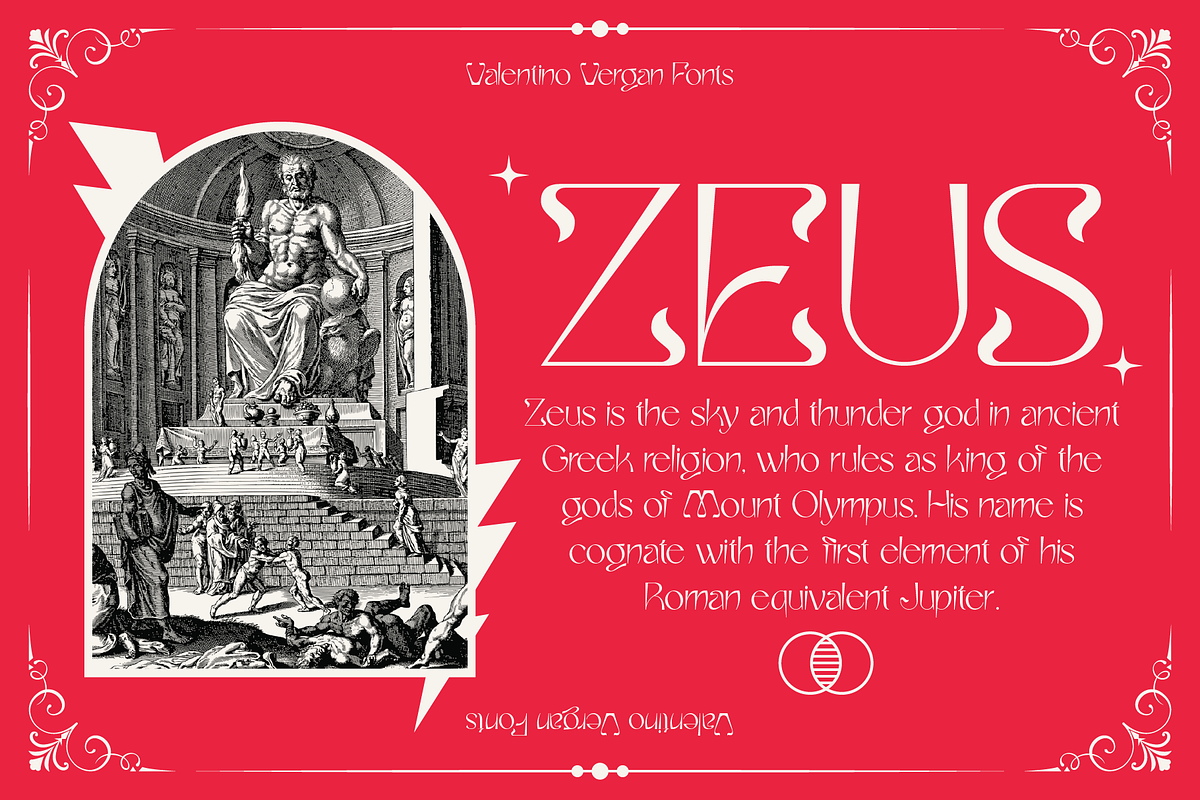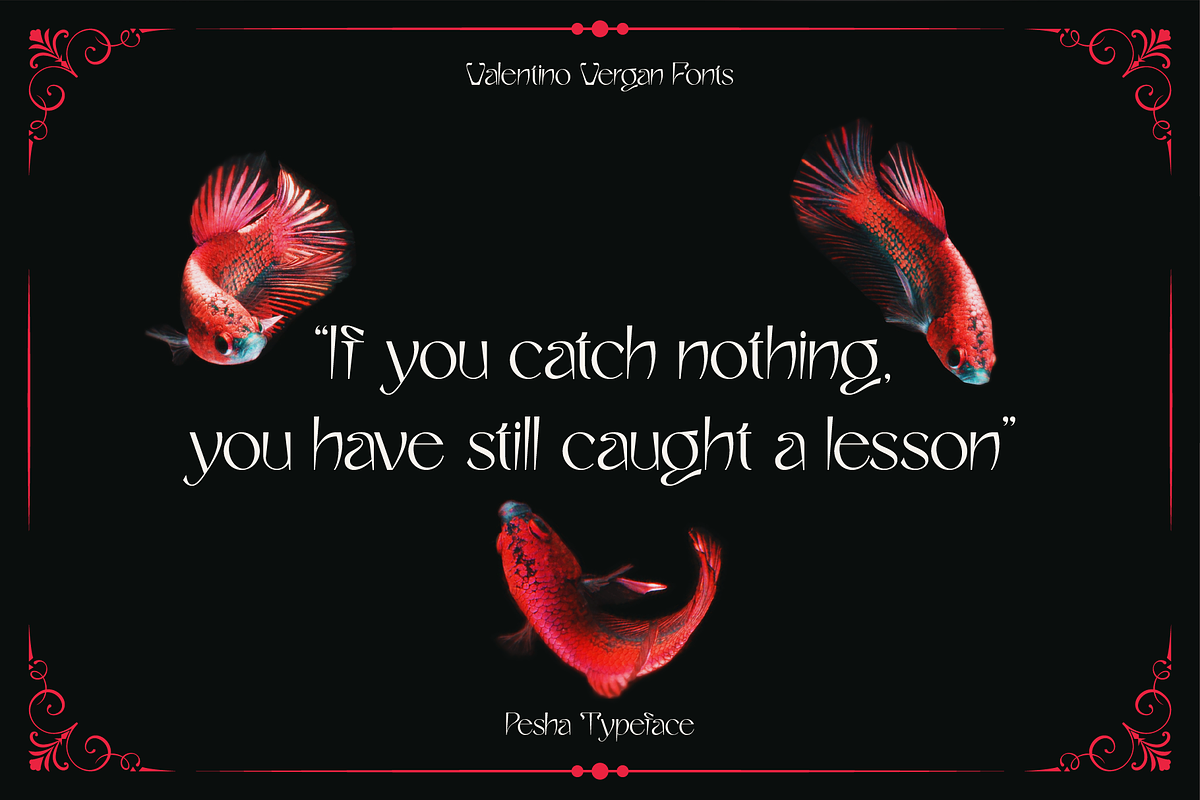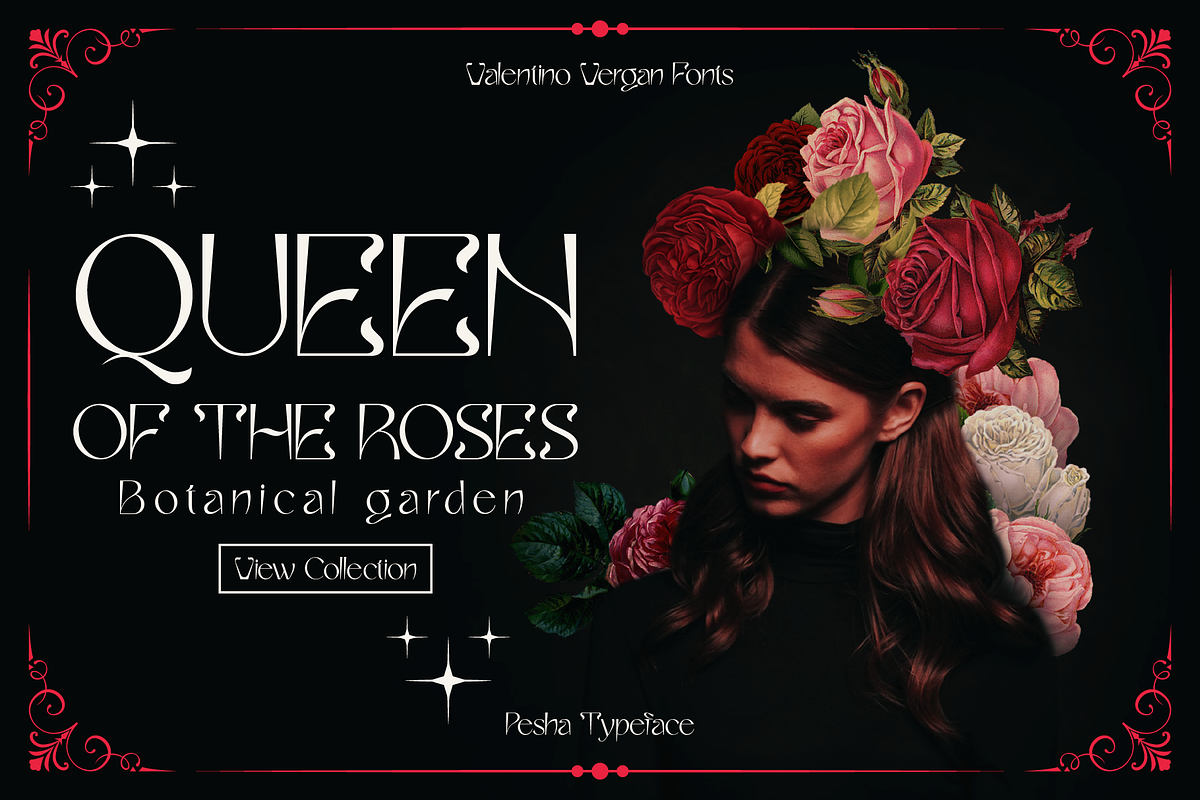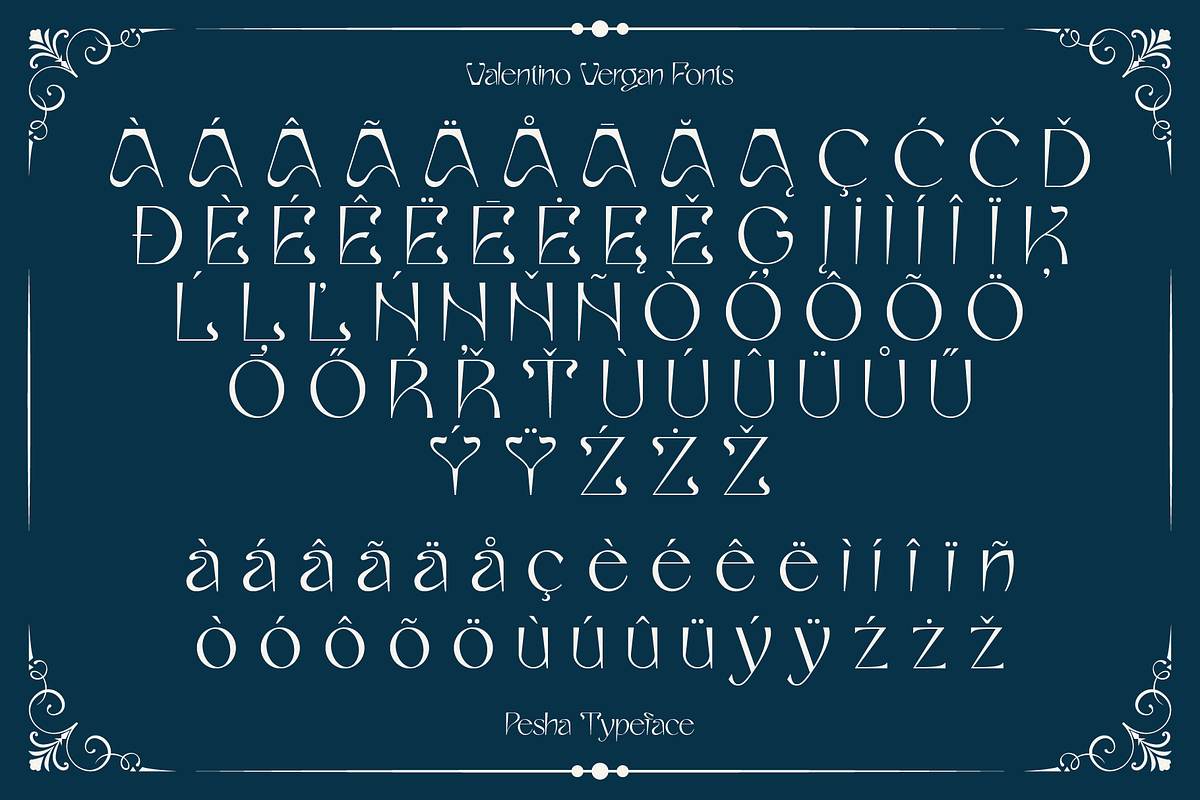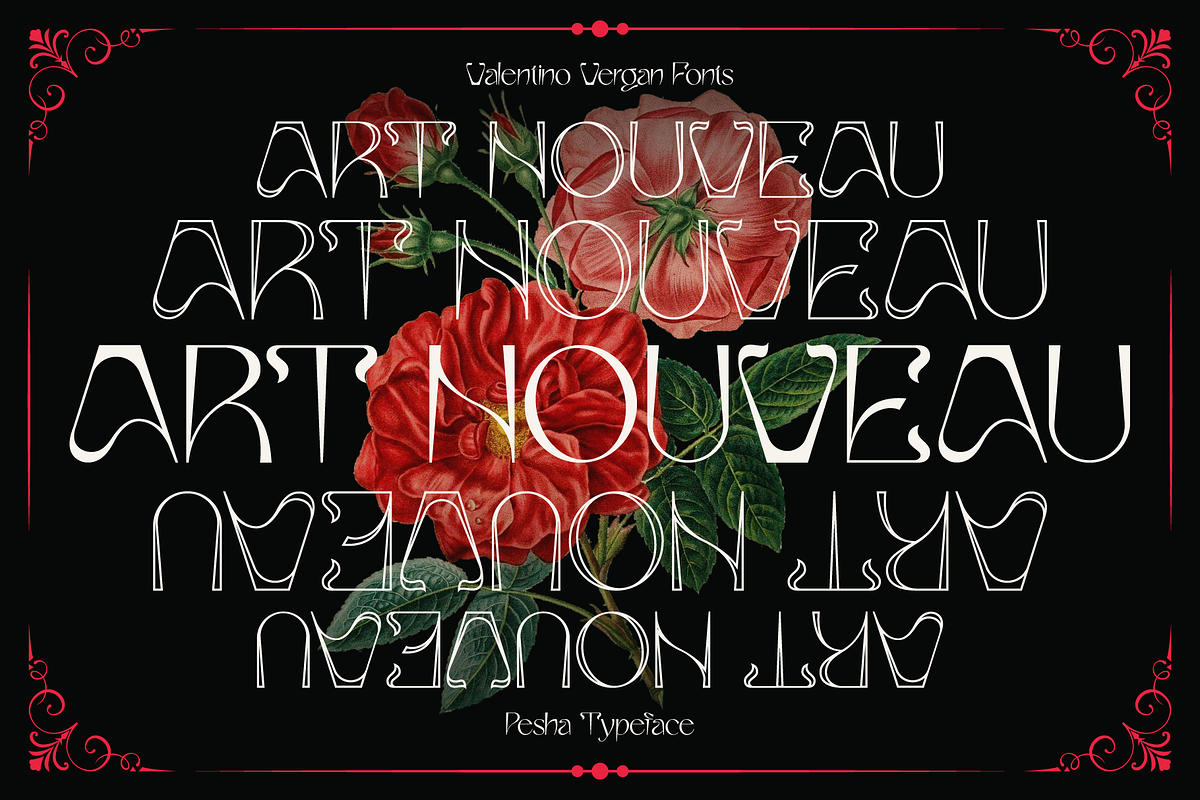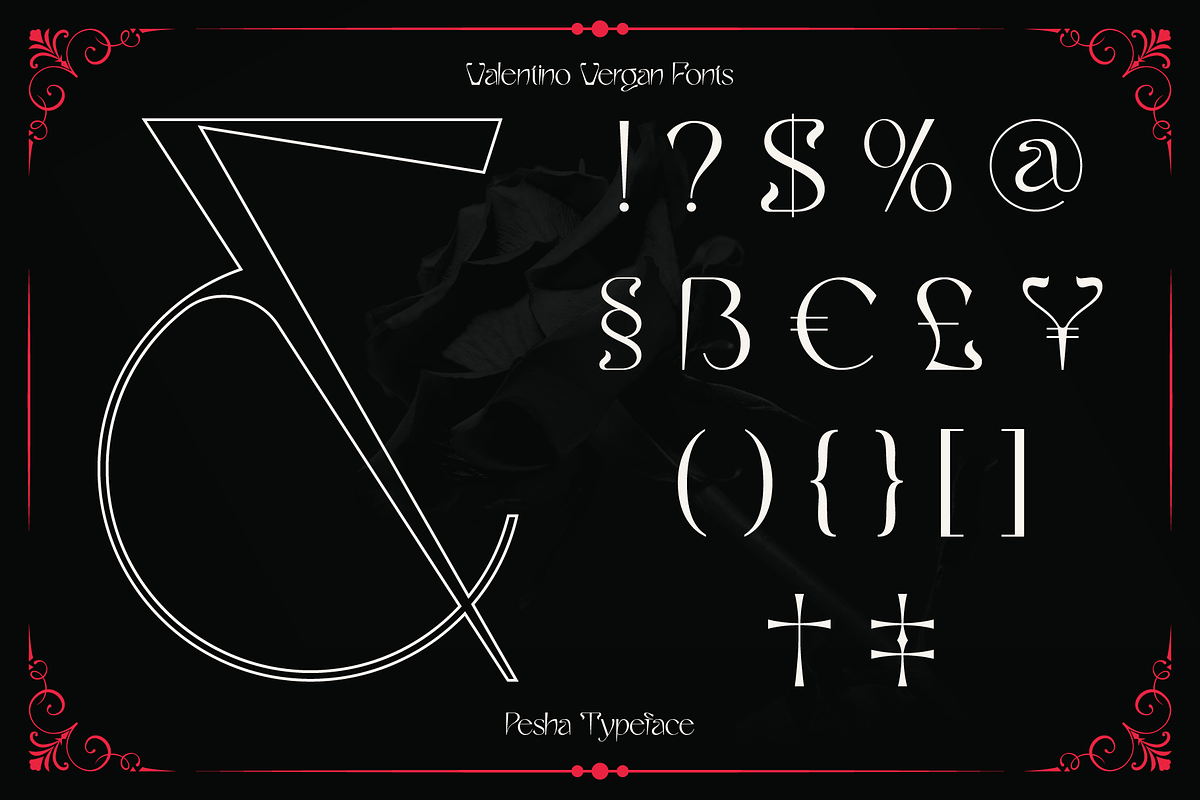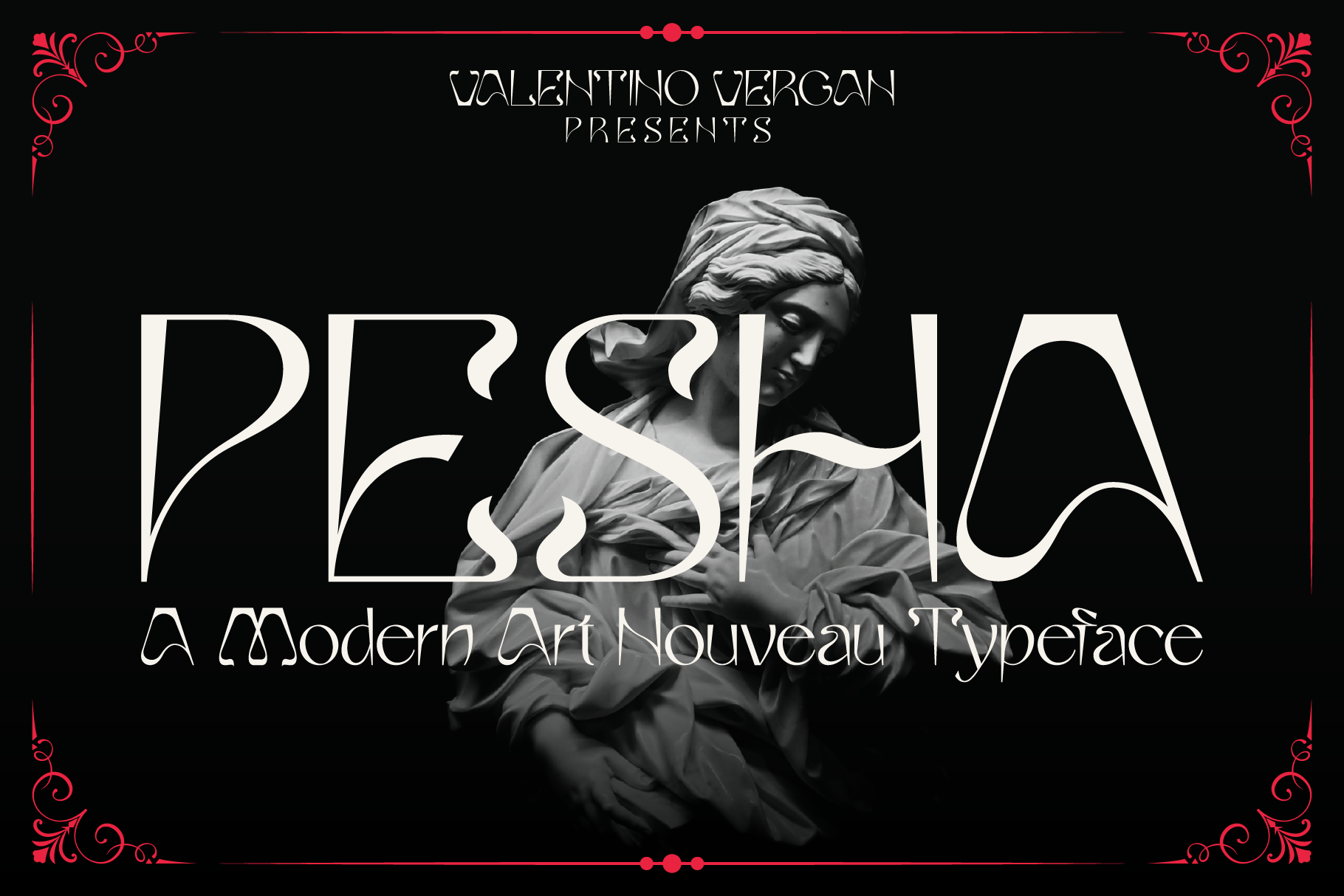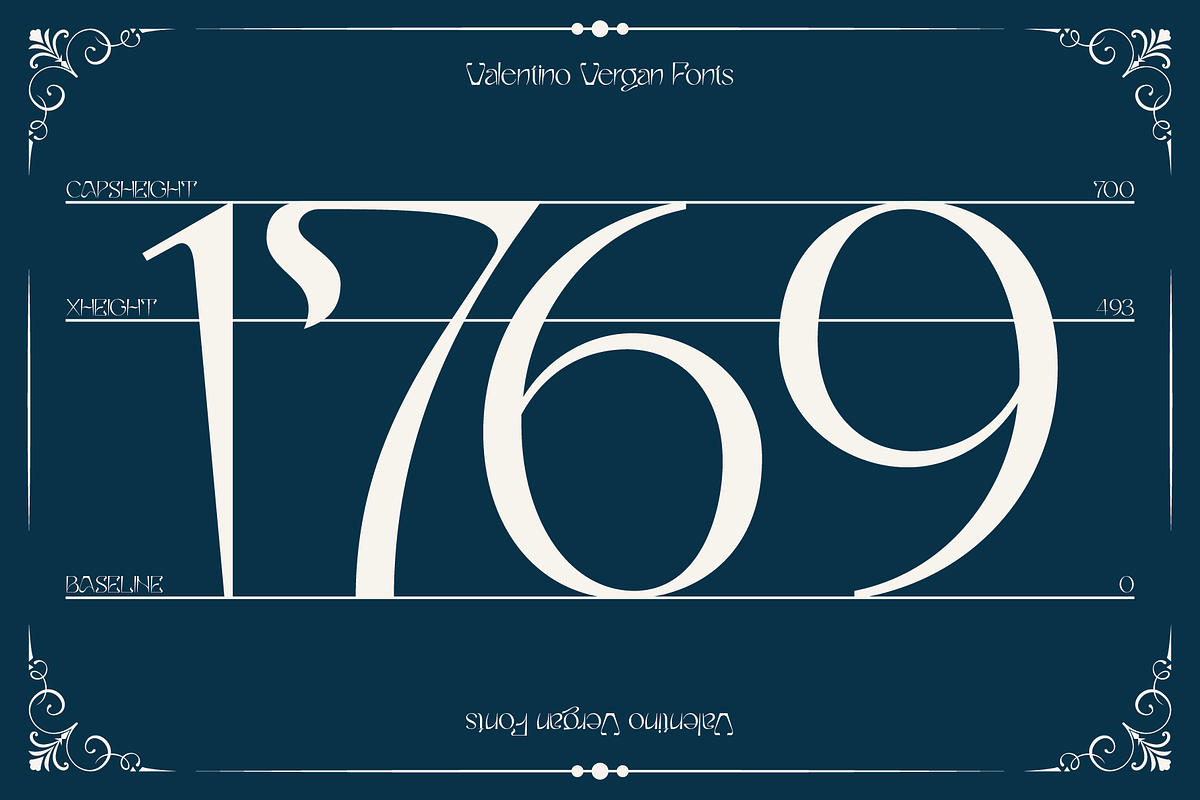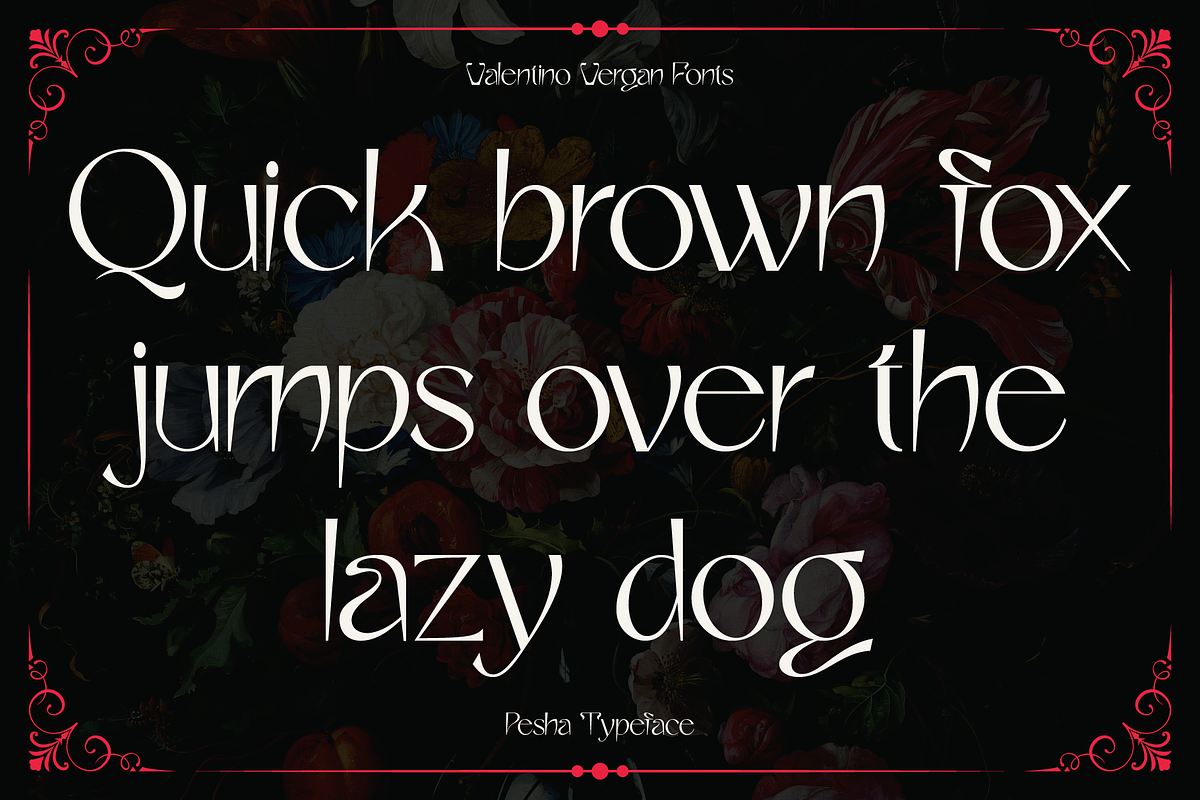
Pesha - Art Nouveau Typeface
Pesha is a beautiful and unique sans serif typeface that is inspired by the early art nouveau type styles. Pesha combines diverse styles from different eras, to create a unique blend between contemporary and retro.
Pesha works best for elegant titles, magazines, logos, wedding invitations, headlines, editorials and much more.